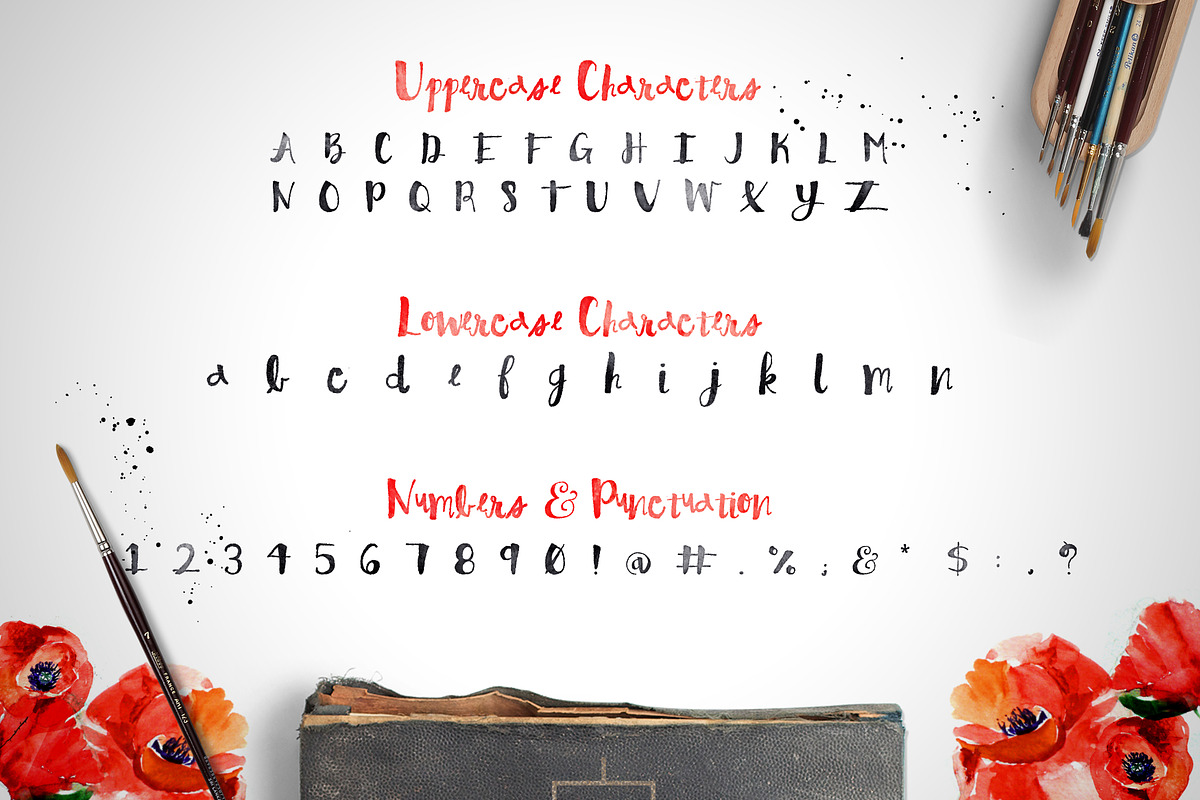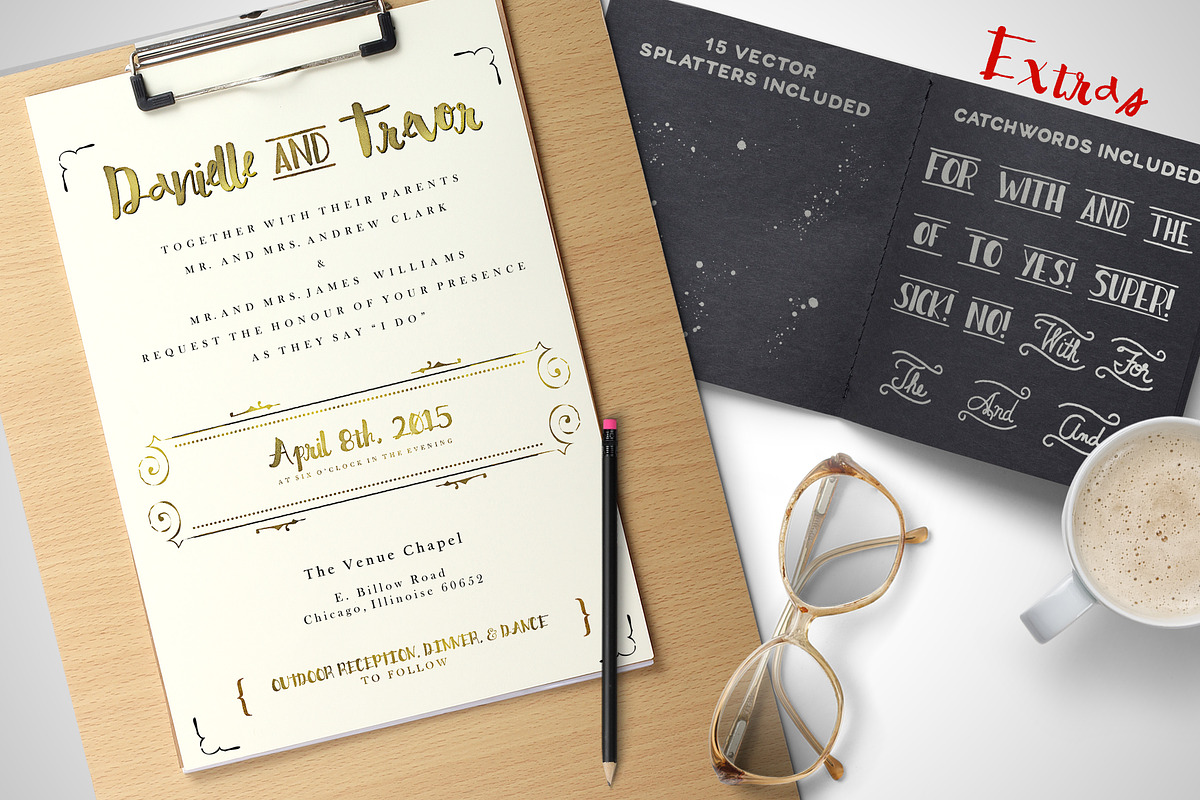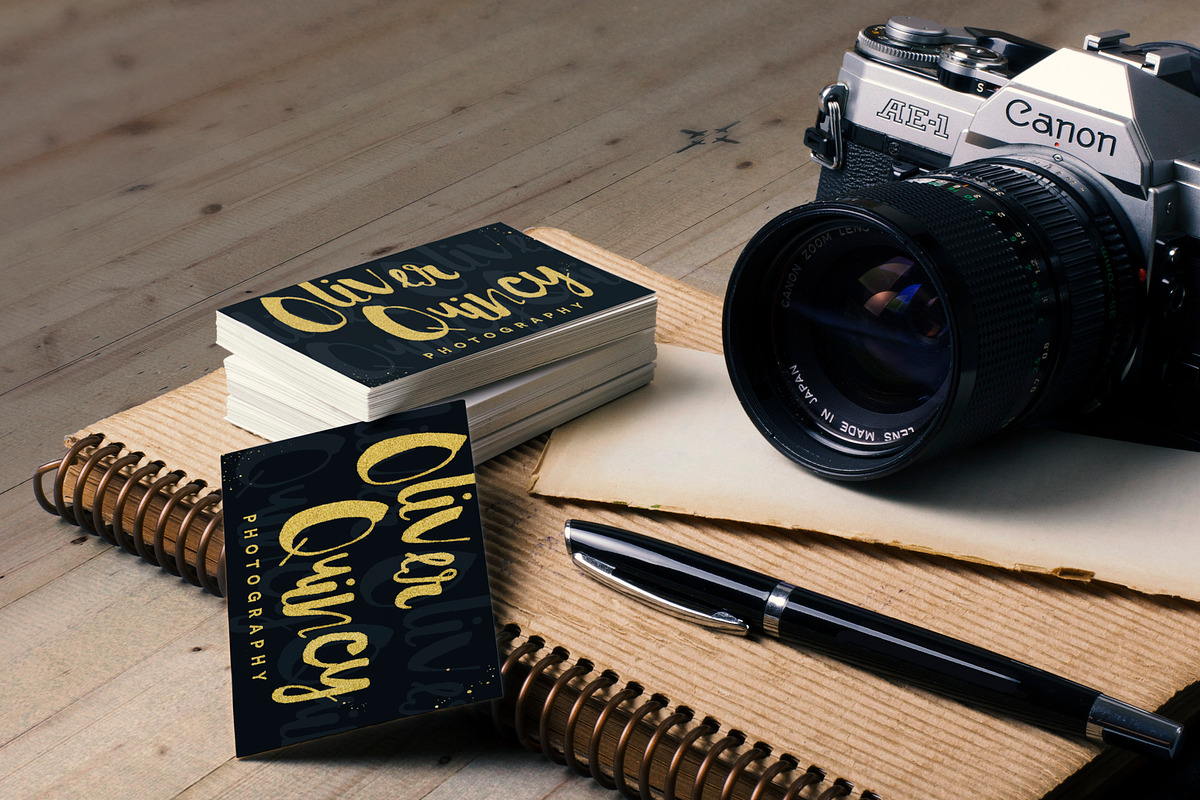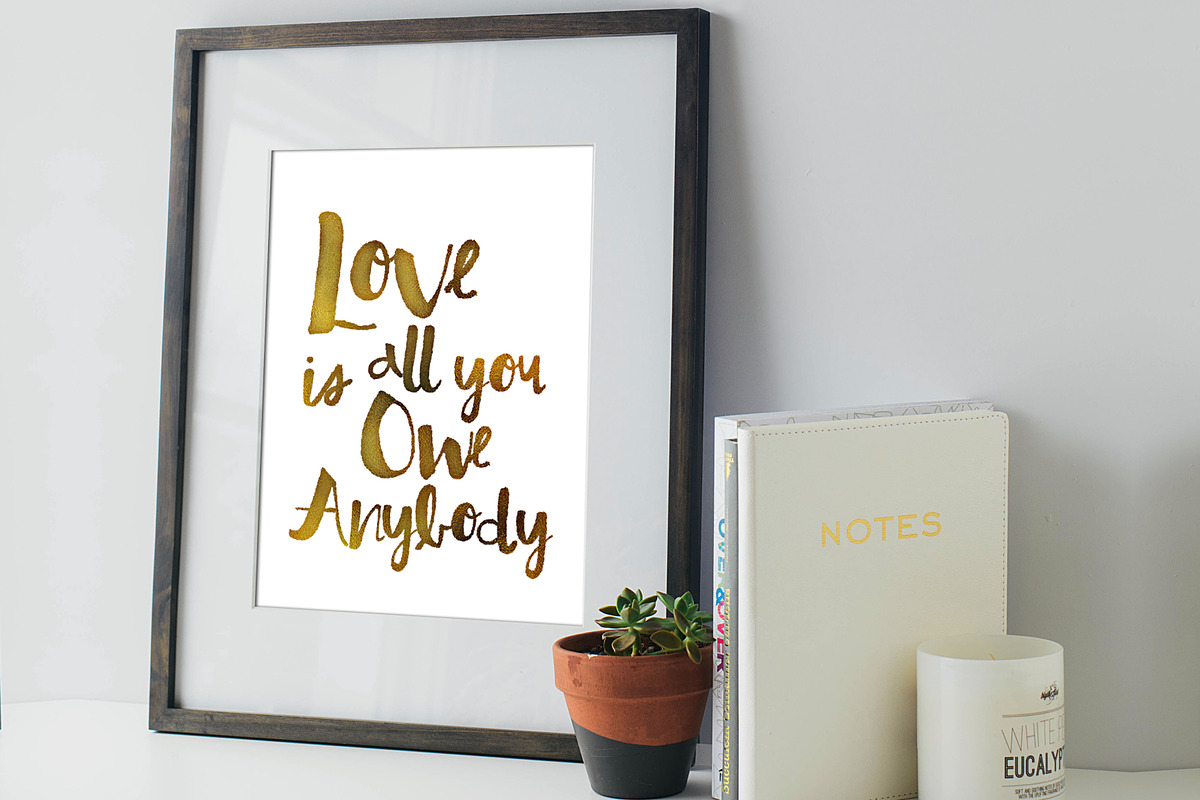
Billow Font + Extras
Billow Font + Extras by Flycatcher Design is a font selected for branding, posters, packaging, typography.
- • 15 Catchwords (See Wedding Invite image)
- • 9 Extra Character Glyphs (4 capitals & 5 lowercase)
- It’s imperfect baseline and thin-to-fat characters give it a fun and stylish aesthetic perfect for typography, branding, logo design, invita
- The font includes 26 capitals, 26 lowercase, and limited punctuation.